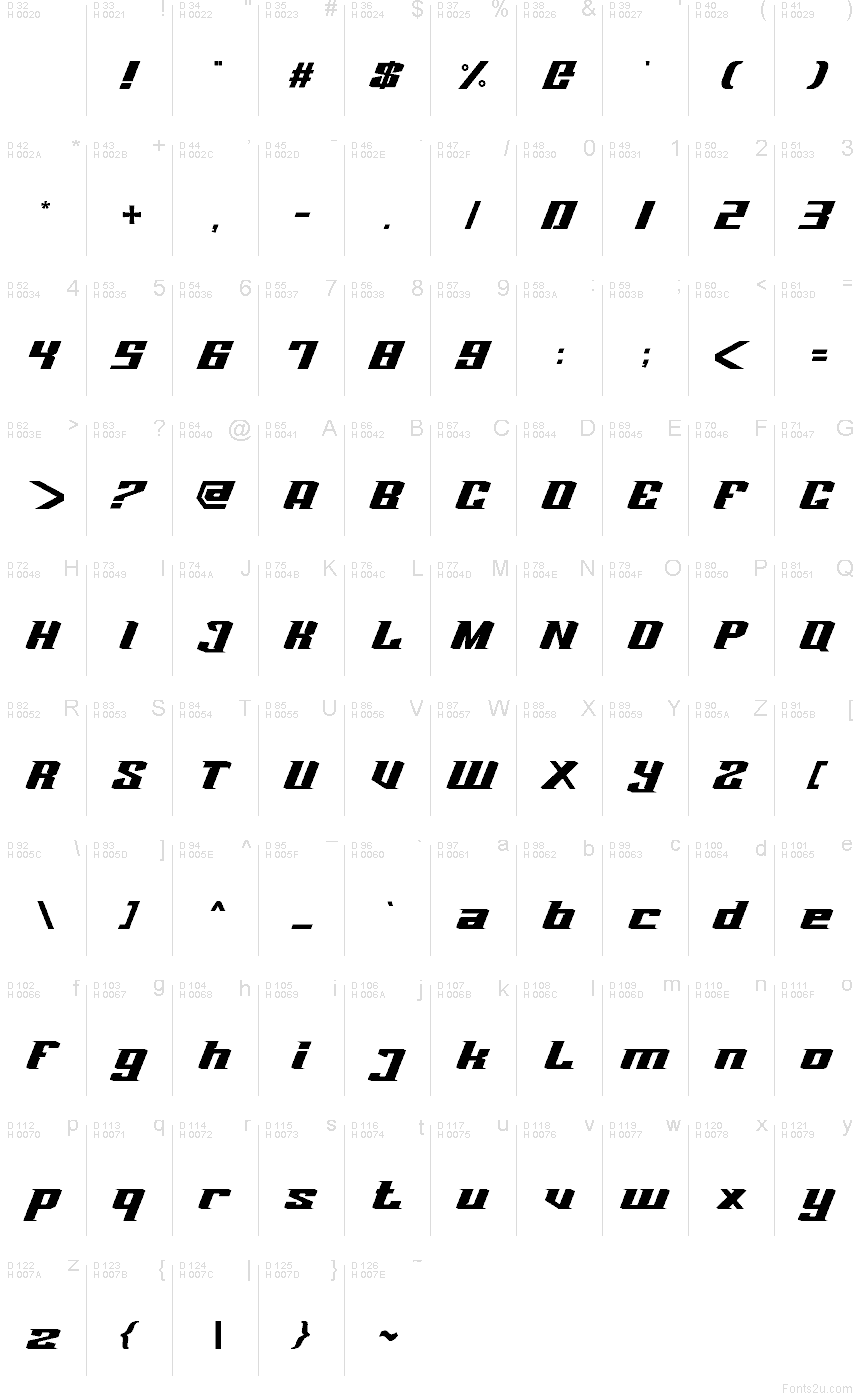
Greats Racing Italic
Greats Racing Italic font by Aziz Mirza of Eza Studio is a free techno display typeface that hits the gas on speed and aggression. Heavy, angular strokes, a fierce forward slant, and tight horizontal compression make every word feel like it’s cutting through air. The letters lock together in a bold, almost mechanical rhythm, giving your layouts that gritty, track-side energy without sacrificing legibility.
Using Greats Racing Italic, you can power up esports logos, racing posters, motorsport event branding, YouTube thumbnails, game titles, and performance car decals. This free font shines on big, high-impact headlines and short phrases where attitude matters most. For supporting text, pair it with a clean geometric sans at smaller sizes to keep the focus on the high-speed lettering up front.